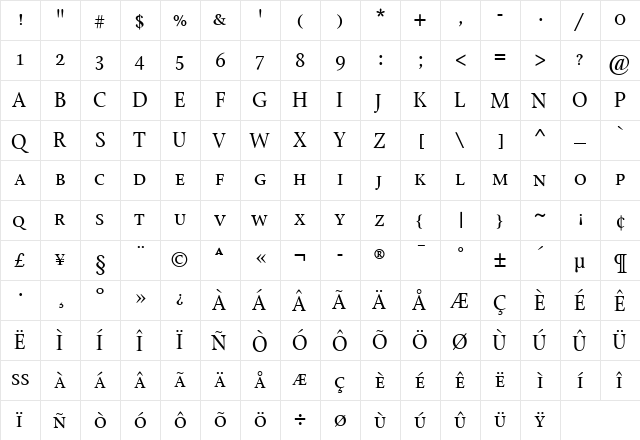
StonePrint Regular
Design Context for StonePrint Typeface
StonePrint takes a measured approach to typography — its balanced proportions and neutral character make it a reliable workhorse for both digital and print work.